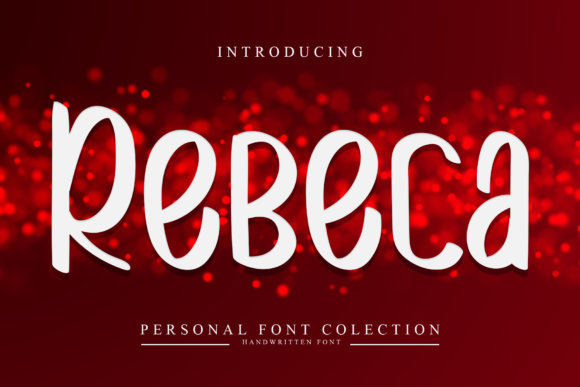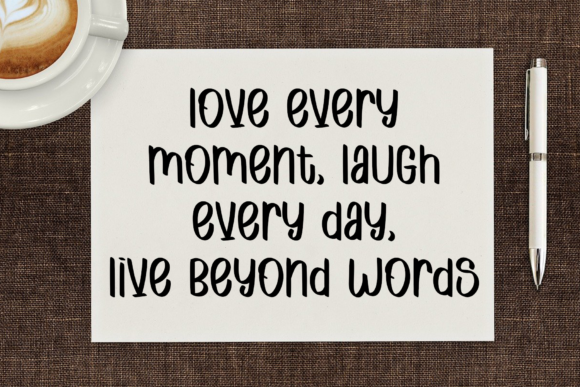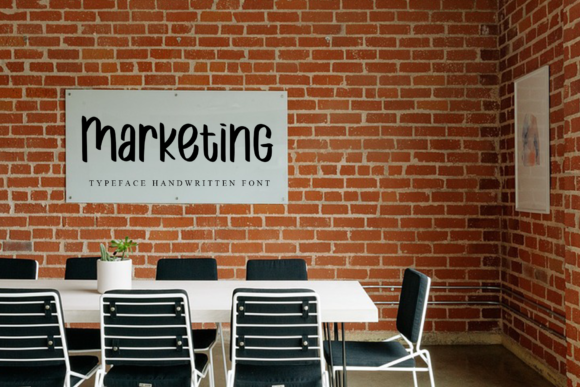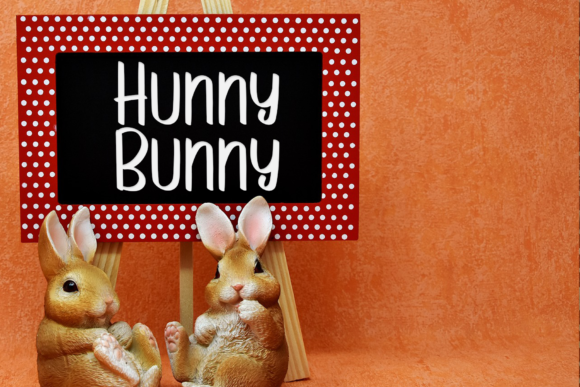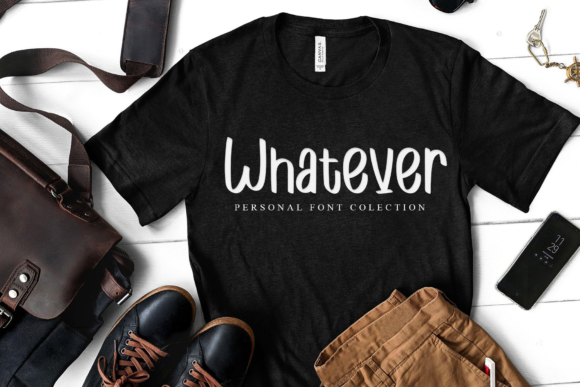
About Rebeca Font
Rebeca is a simple, clean and dainty handwritten font. Cursive and joyful, this font will be ideal for writing wedding invitations, cards, branding, printing or any other design that may need a relaxed touch!